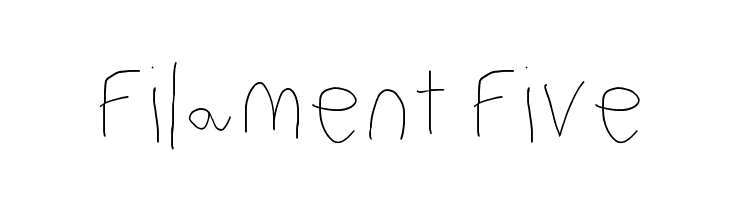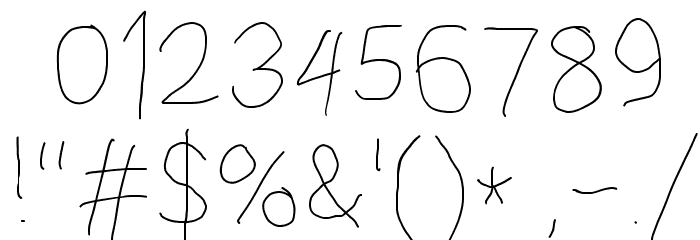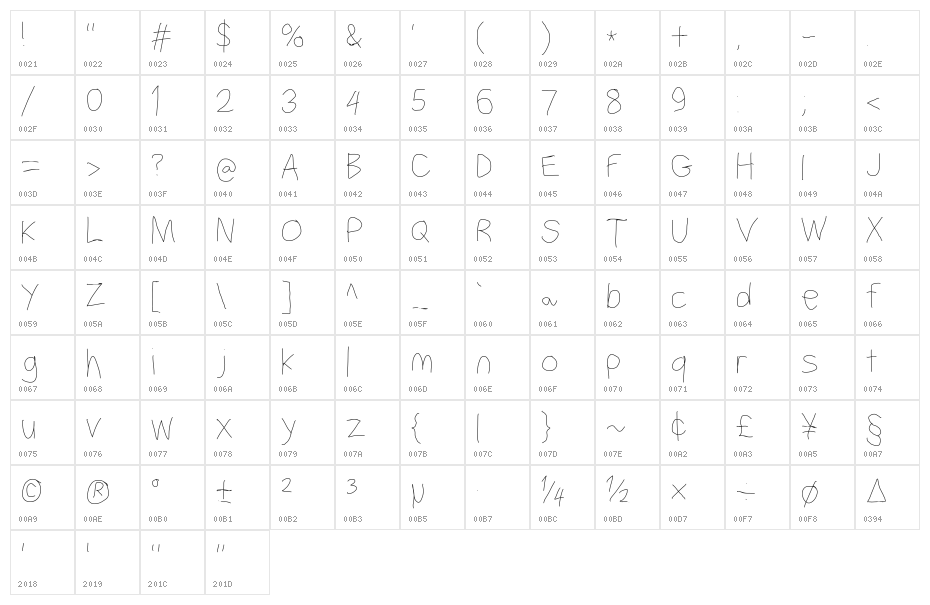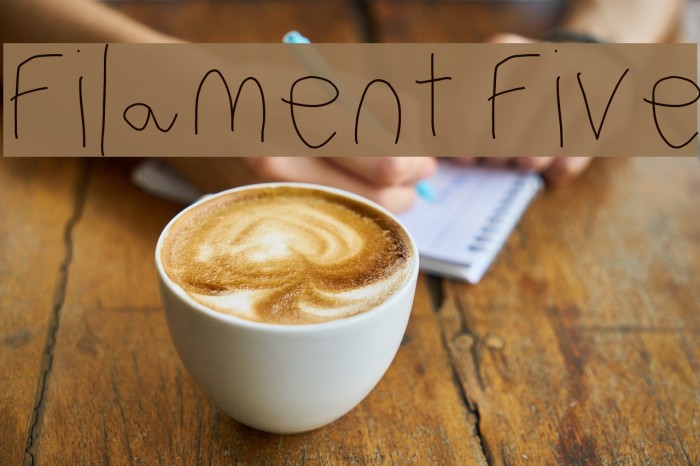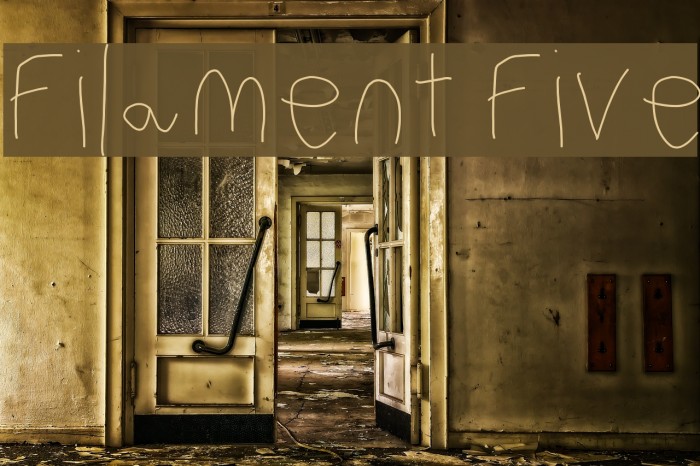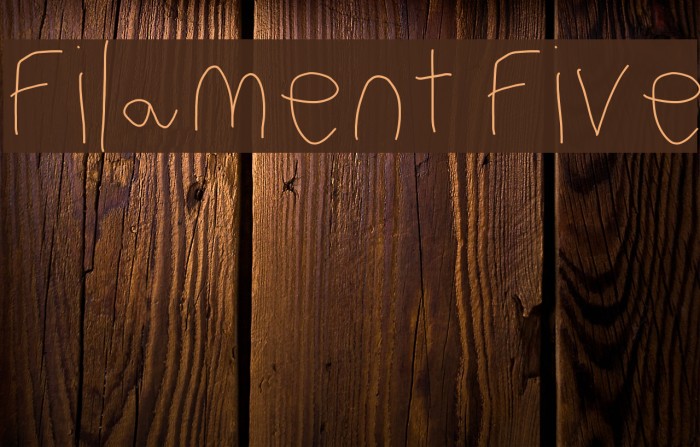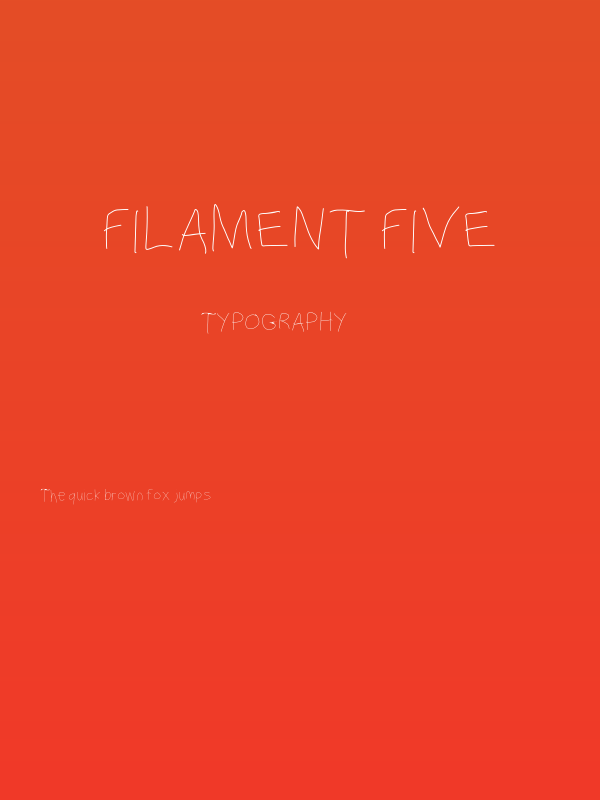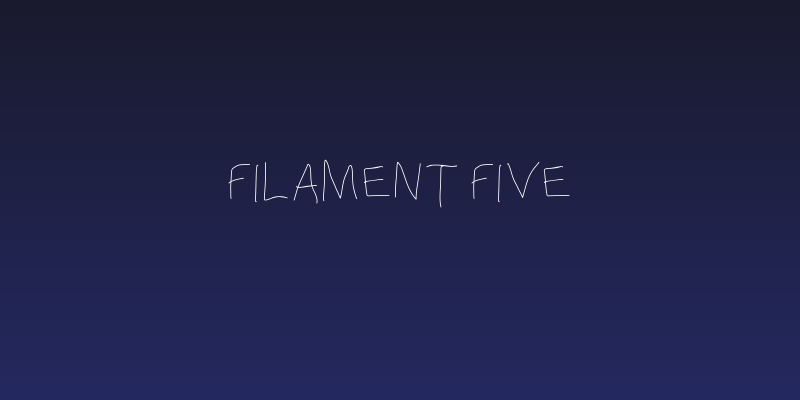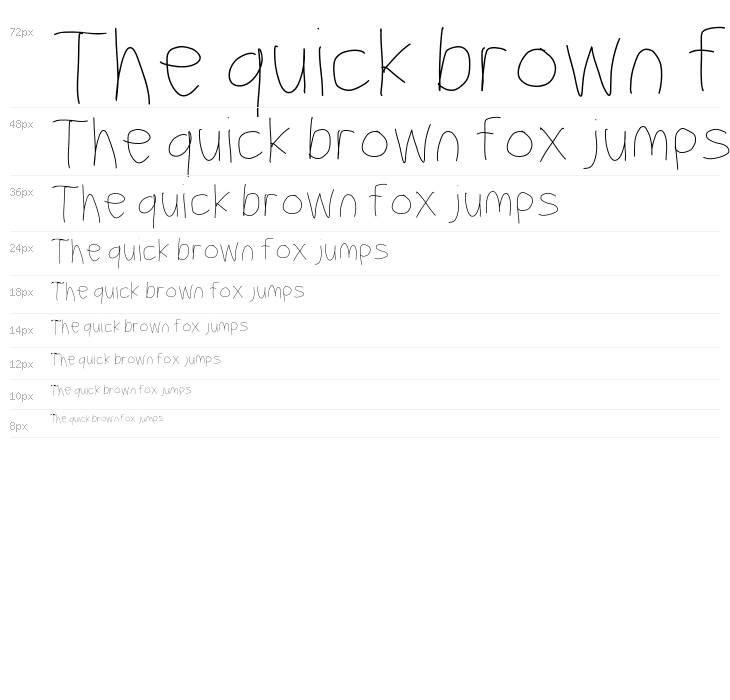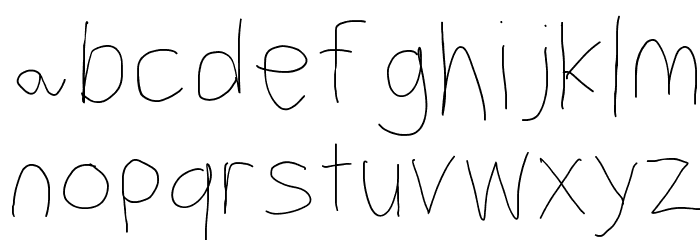
Filament Five Font
Filament Five Description
This font features a handwritten style with a playful and casual appearance. The characters are thin and slightly irregular, giving them a whimsical and personal touch. The uppercase and lowercase letters maintain a consistent height, while the numerals and special characters blend seamlessly with the overall design. The strokes are delicate, creating an airy and light feel. This font is ideal for projects that require a personal or informal tone, such as greeting cards, invitations, or creative branding. Its unique style adds a touch of individuality and charm to any text.
| Proposed Projects | Ideal for greeting cards, invitations, creative branding, and personal projects. |